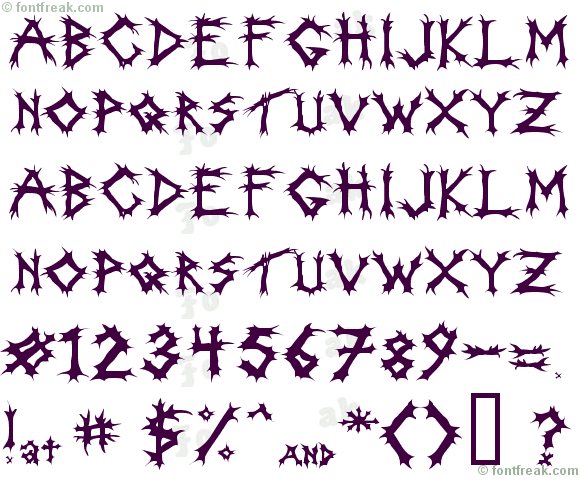
Incantation
About Incantation
The Incantation font by Gravetech is a striking display typeface that captures a sense of mystique and otherworldliness. This unique font falls under the decorative category, characterized by its sharp, jagged edges and intricate details that resemble thorny branches. The stroke weight is consistent throughout, creating a bold presence that demands attention, while the high contrast between thick and thin lines adds depth and dimension. The spacing is tight, contributing to a cohesive, almost chaotic look that enhances its dramatic effect.
Ideal for a variety of creative projects, Incantation is perfect for designing movie posters, particularly those in the horror or fantasy genres. Its gothic aesthetic can also elevate the ambiance of book covers, especially for novels centered around magic or the supernatural. Additionally, this font works well for themed event invitations, such as Halloween parties or mystical gatherings, where a touch of the eerie is desired. Small business owners in niche markets, like occult shops or themed cafes, will find it particularly appealing for branding and signage, effectively attracting the target audience.